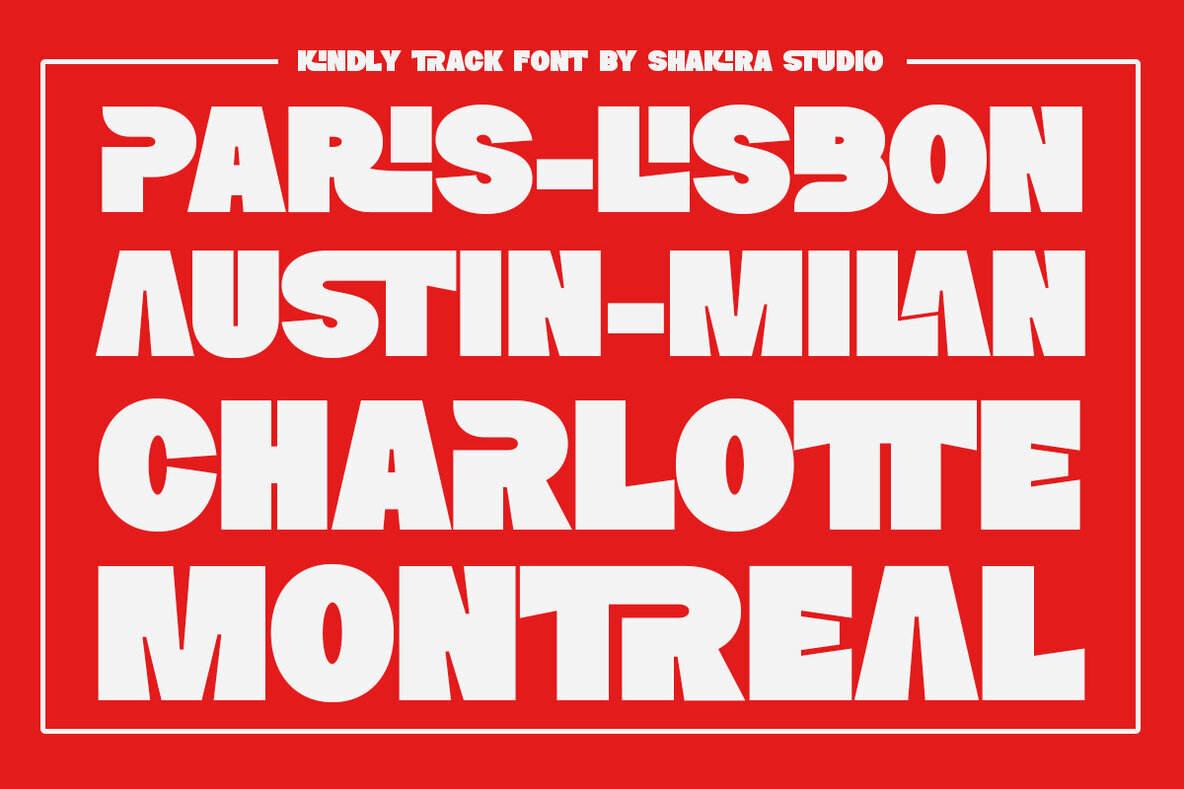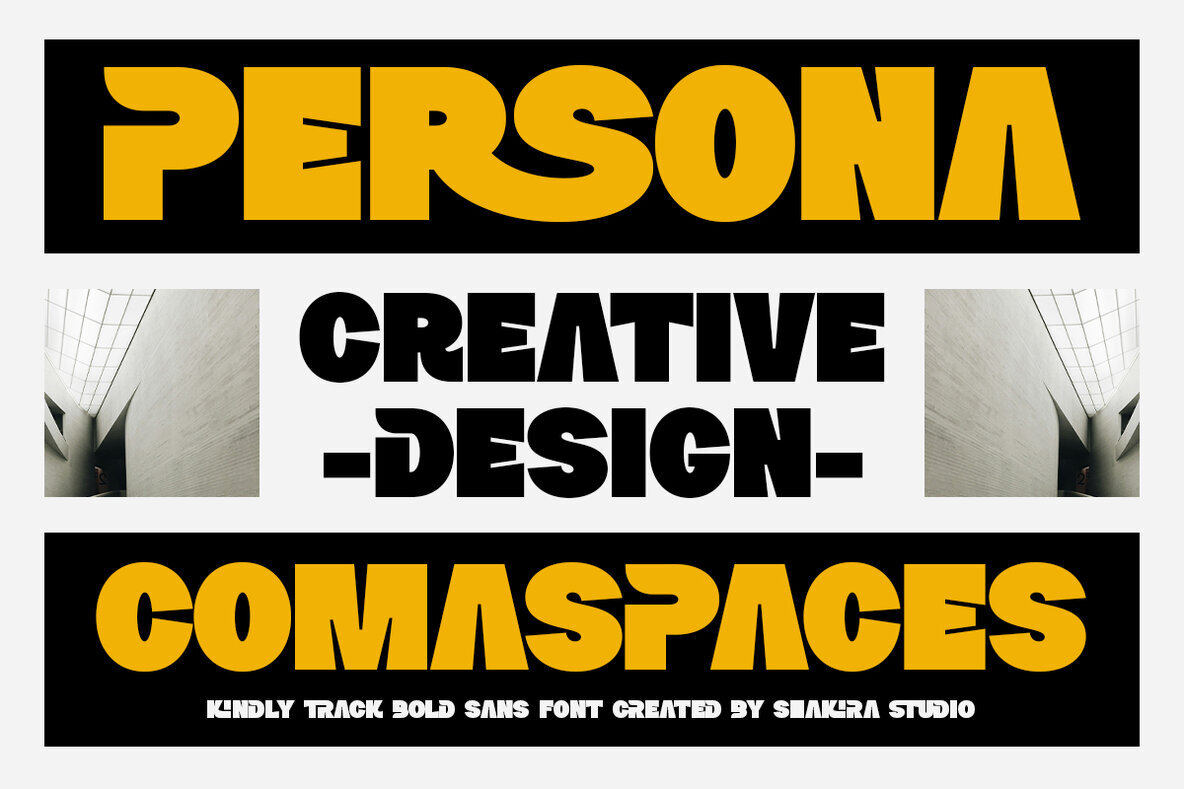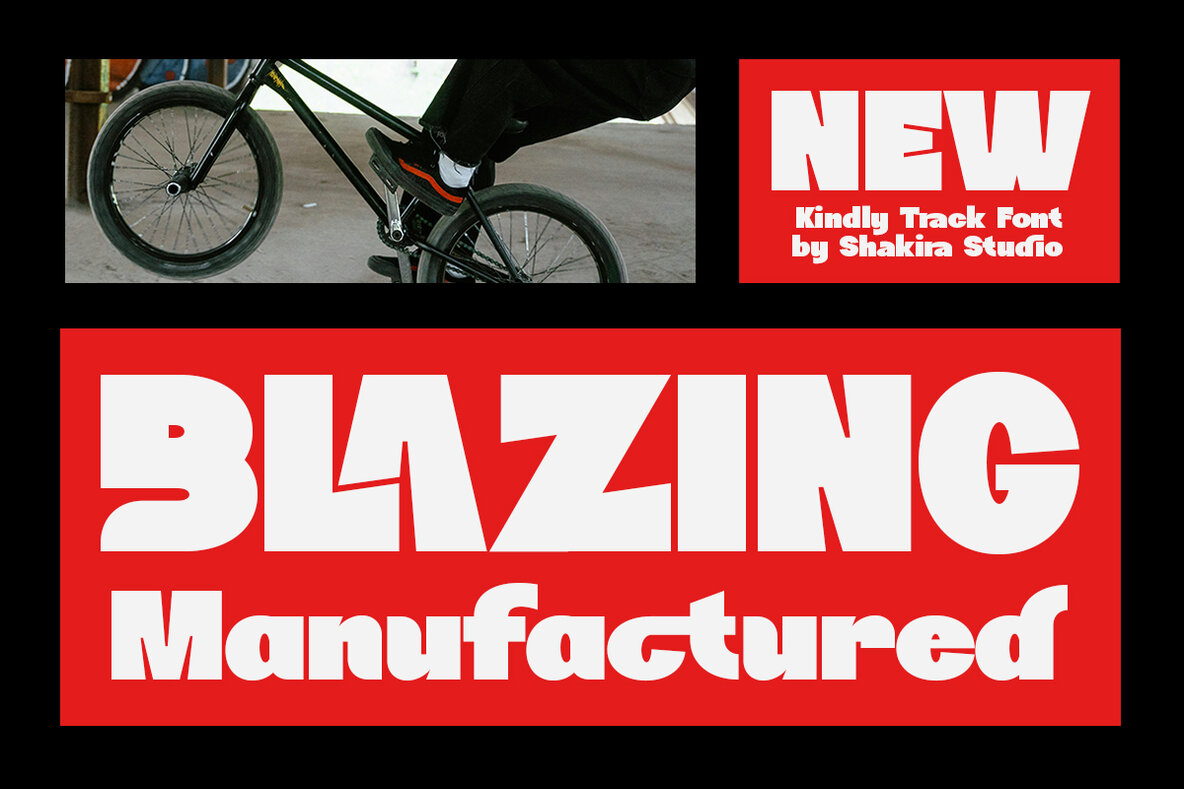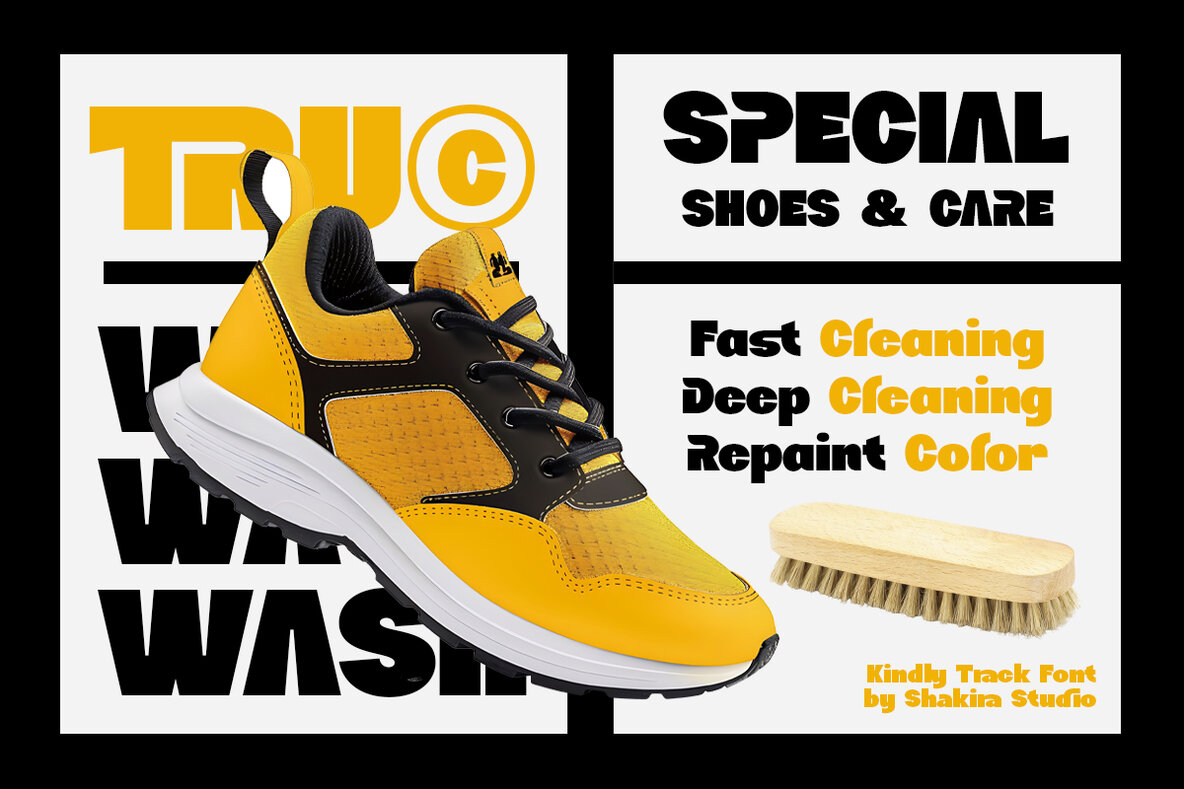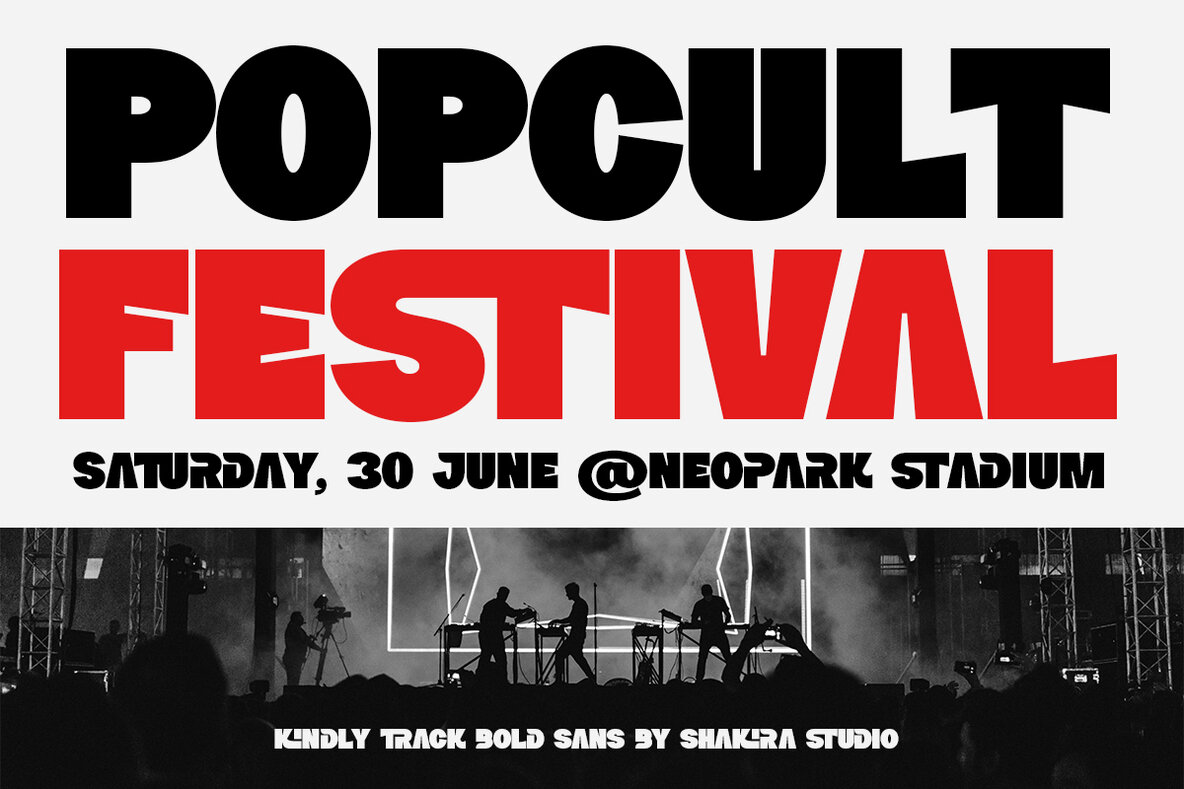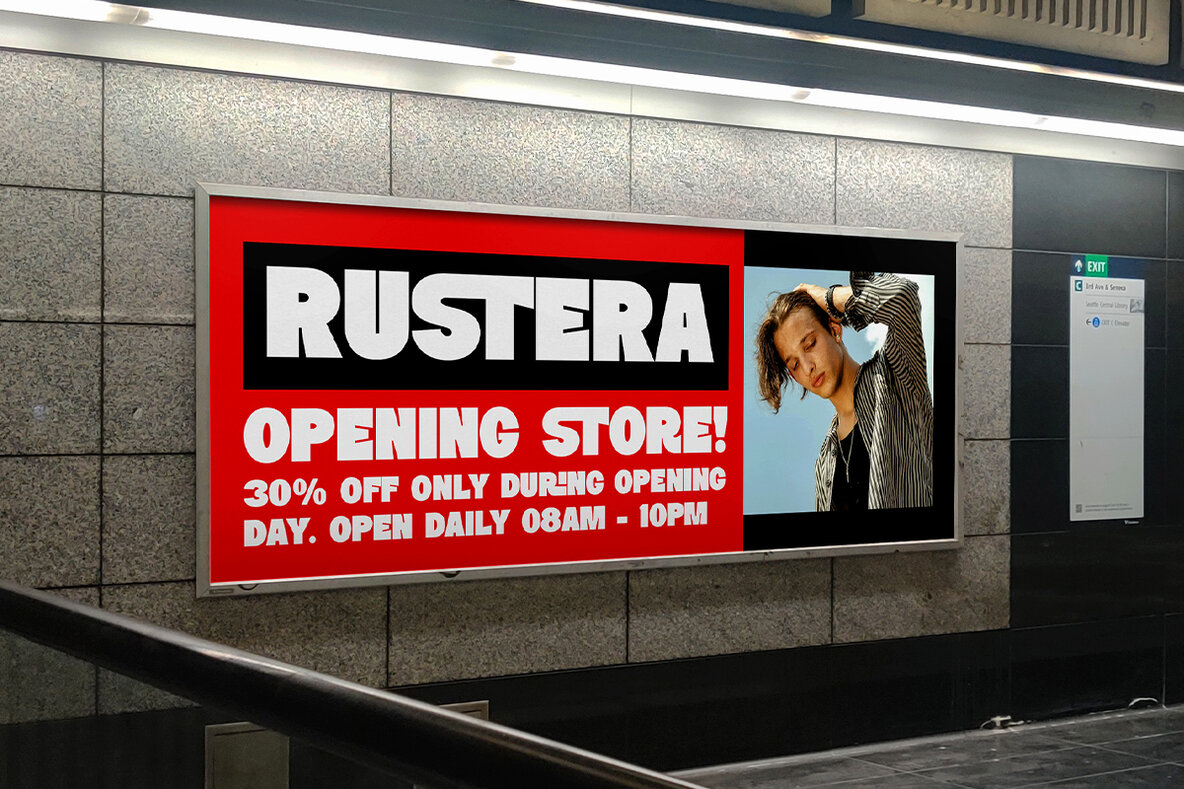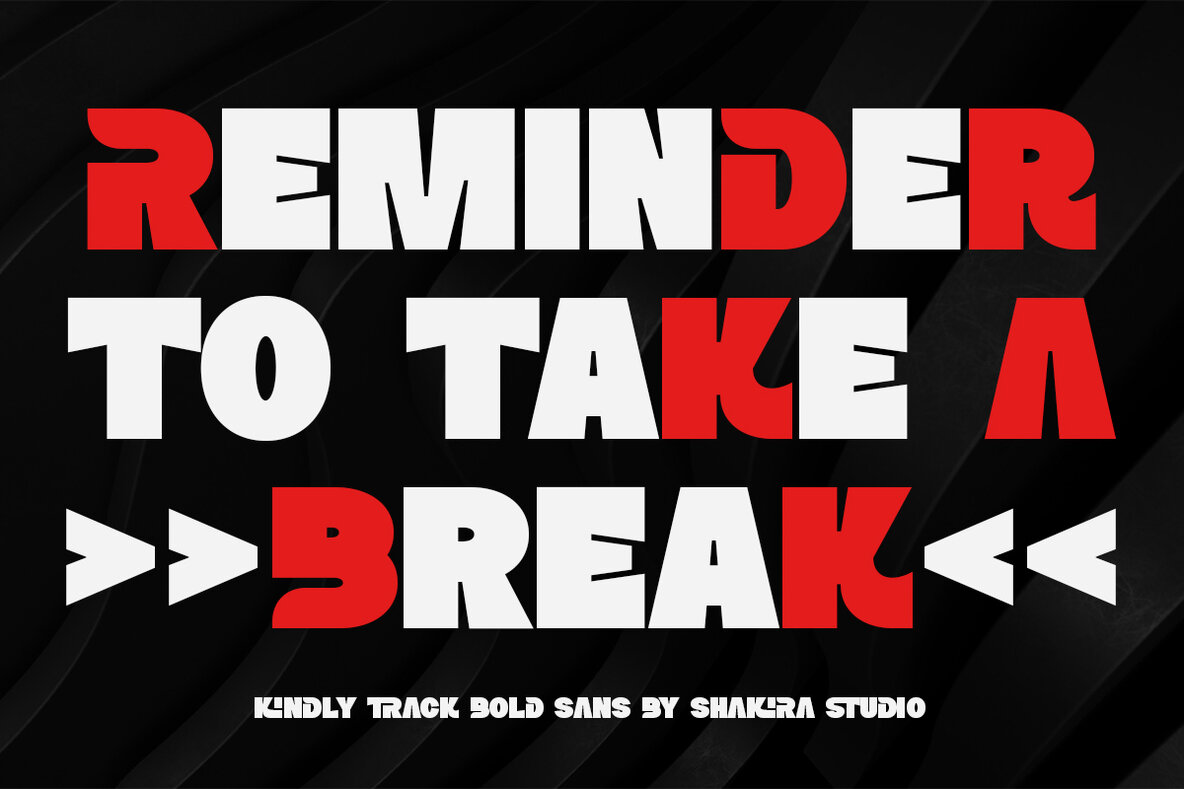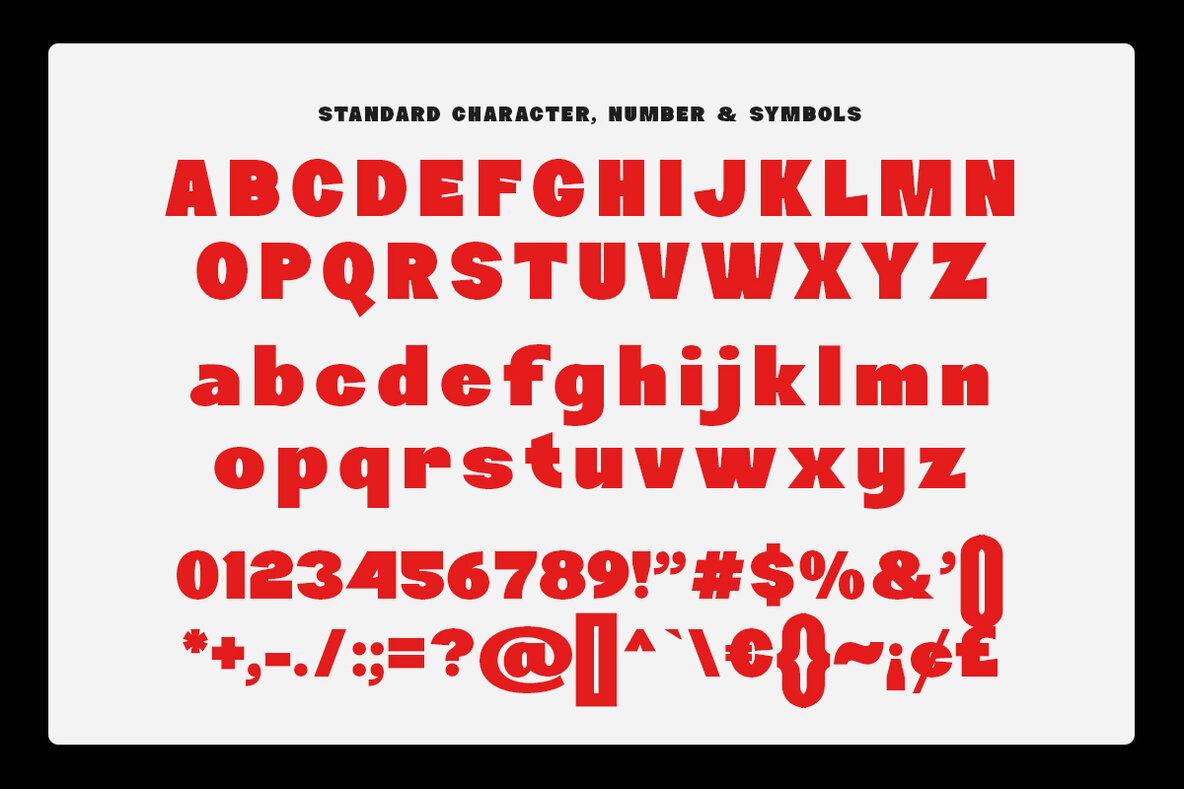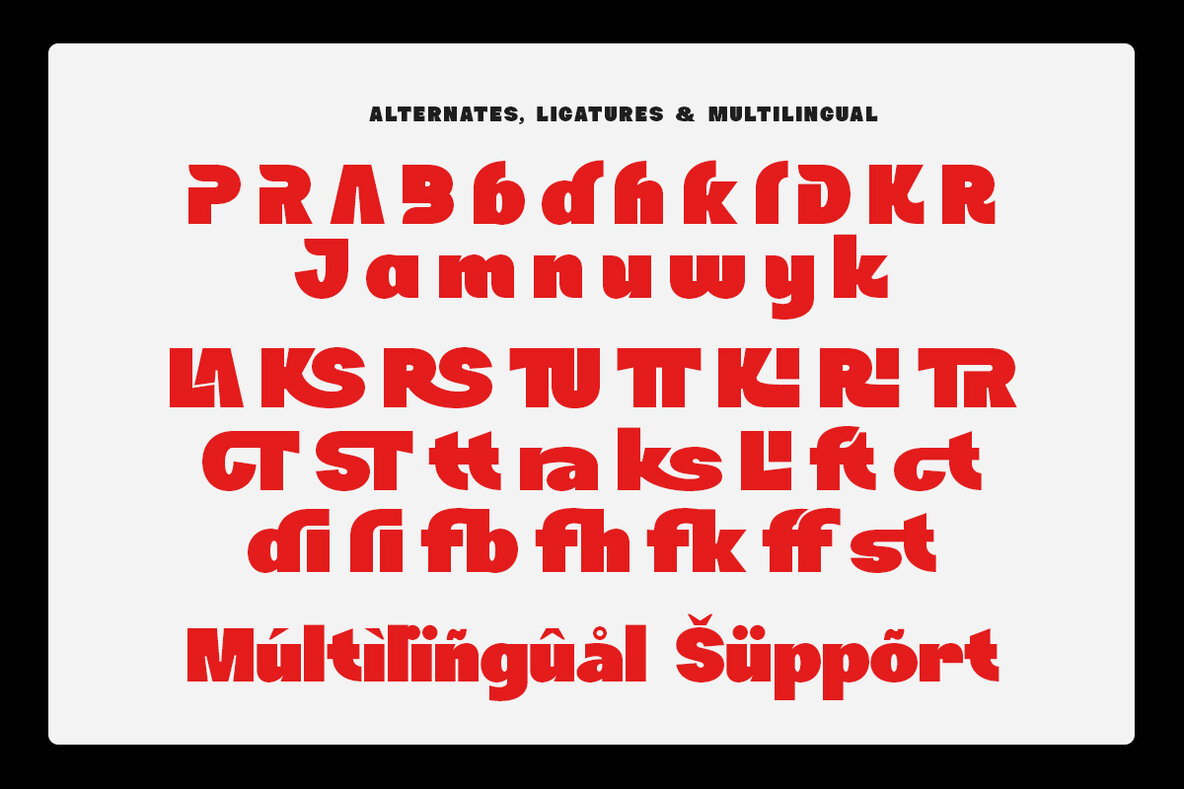
Kindly Track Font
Kindly Track Regular
Kindly Track is a bold sans serif display font that embodies strength and sophistication. Its robust characters make it suitable for creating eye-catching and professional designs, perfect for branding, posters, headlines, and logos. This font is designed to add a modern and versatile touch to any project, with stylish alternates and ligatures enriching its appeal.
Features of Kindly Track include multilingual symbol support and various OpenType features, such as ligatures and alternates. The font is accessible through popular design programs like Adobe Illustrator, Adobe Photoshop, Adobe InDesign, and even Microsoft Word. It is PUA encoded, ensuring that the characters are fully accessible without requiring additional design software. This font offers extensive multilingual support, including languages such as Afrikaans, French, German, Italian, Spanish, Turkish, and more.